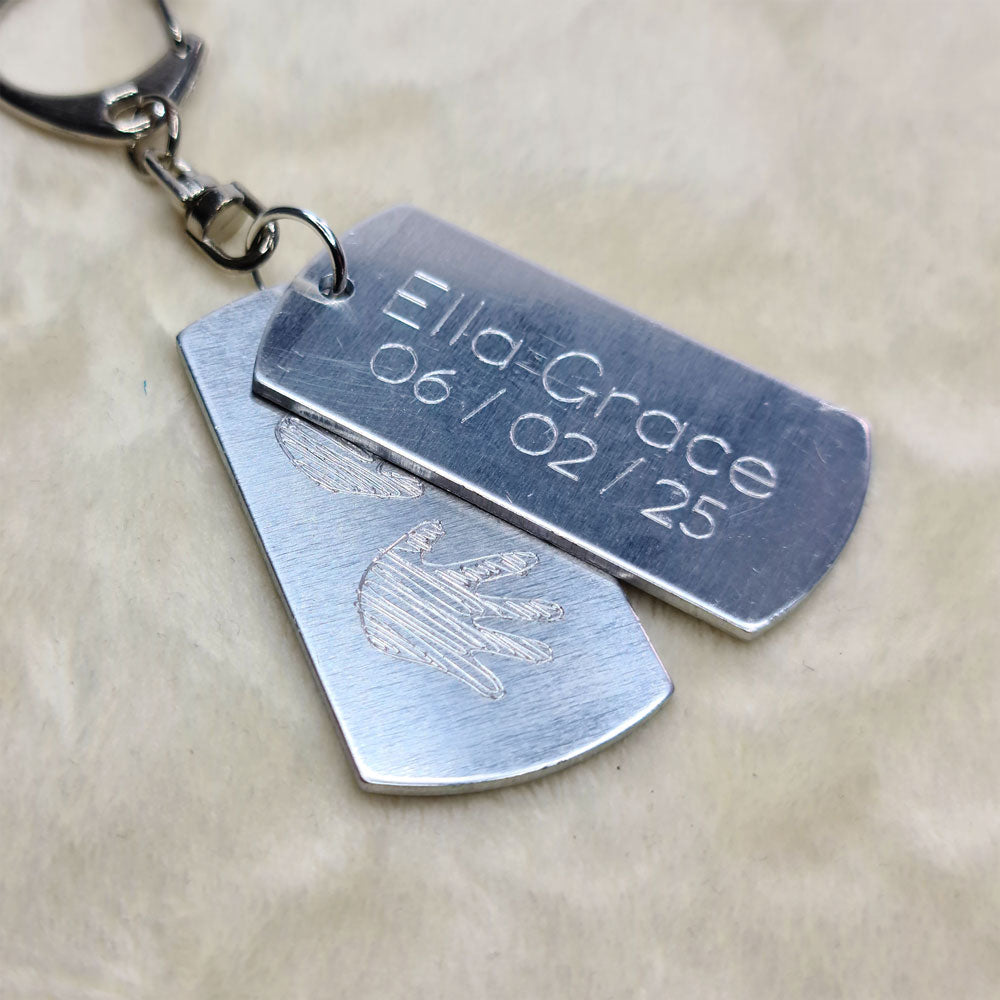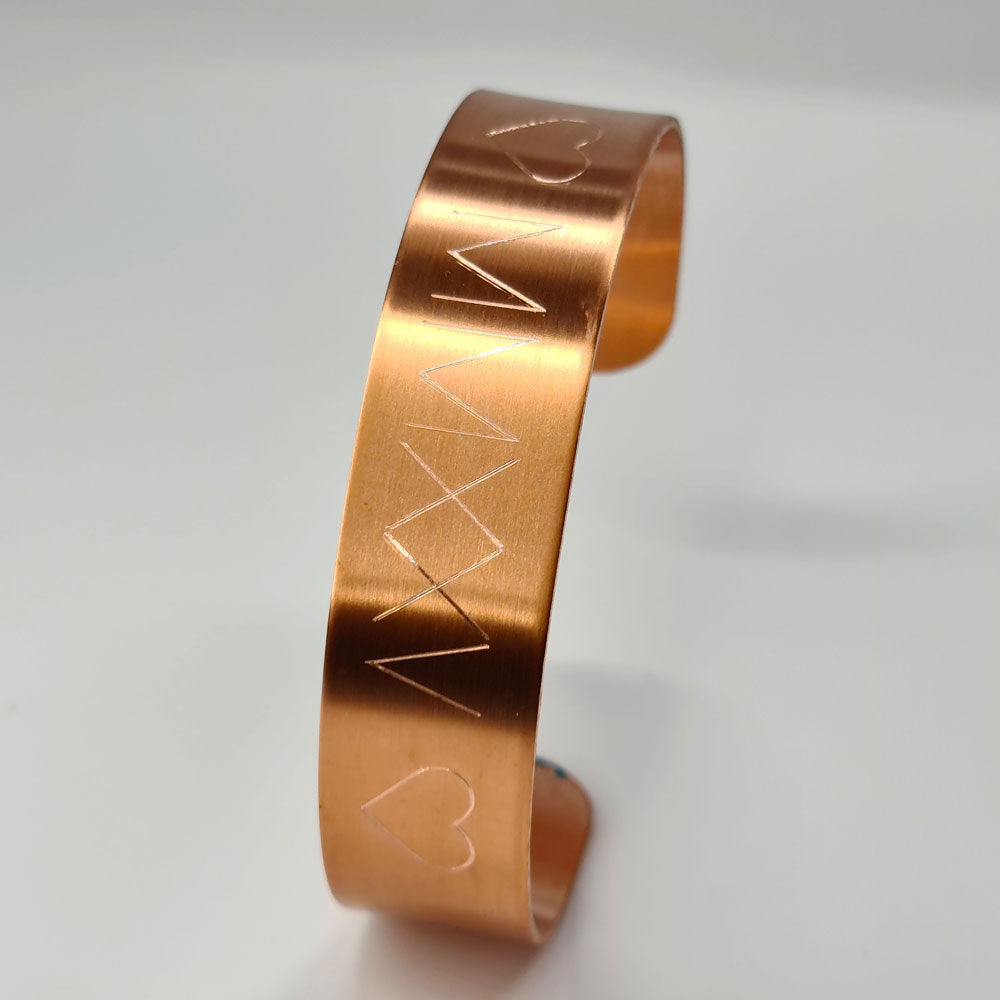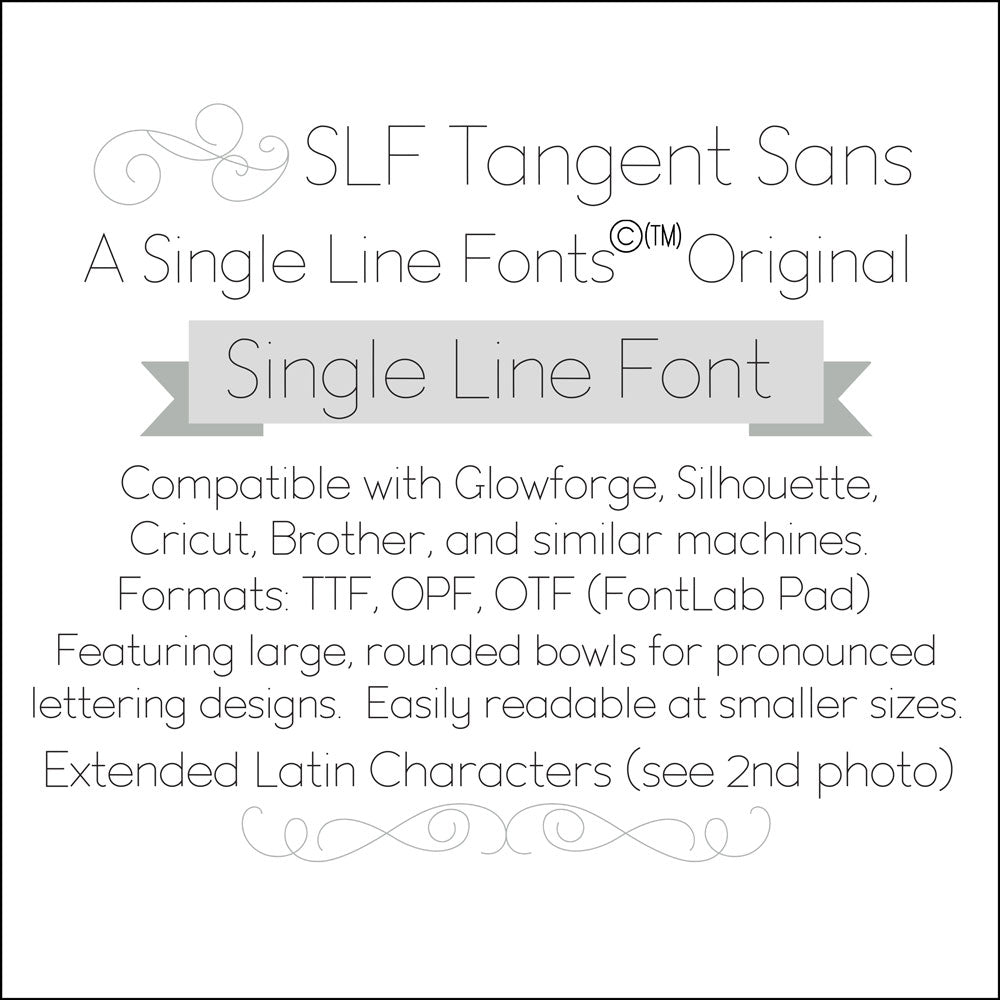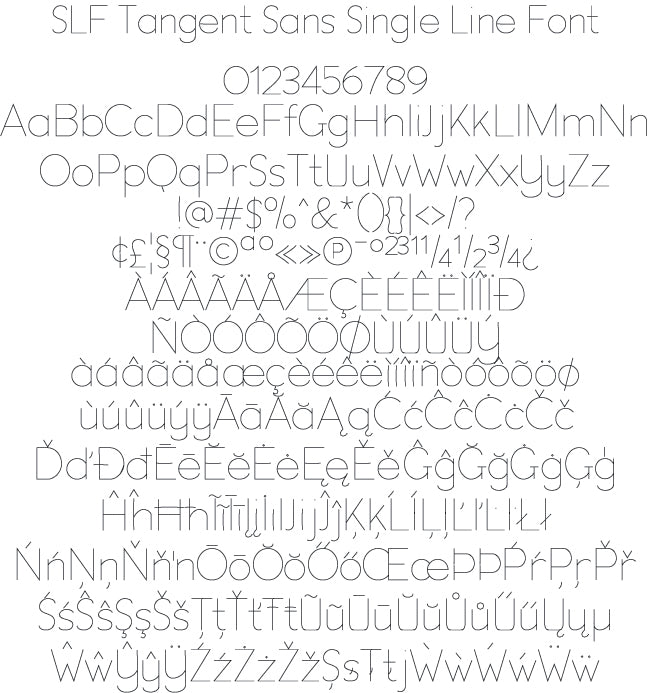
SLF Tangent Sans – Single Line Sans Serif Font for Glowforge, Cricut & CNC
SLF Tangent Sans is a modern single line sans serif font designed for smooth, precise engraving and sketch applications. Its rounded bowls and clean geometric lines make it ideal for projects that need a polished, contemporary look without heavy strokes or filled lettering.
This monoline font is optimized for engraving, scoring, plotting, and sketch pen tools. Use it on wood, metal, acrylic, paper goods, personalized gifts, labels, tags, and any project that benefits from clean, consistent single-stroke paths.
SLF Tangent Sans includes a complete character set with uppercase and lowercase letters, numbers, punctuation, symbols, and accented characters for multilingual support.
• Professional signage and modern print layouts